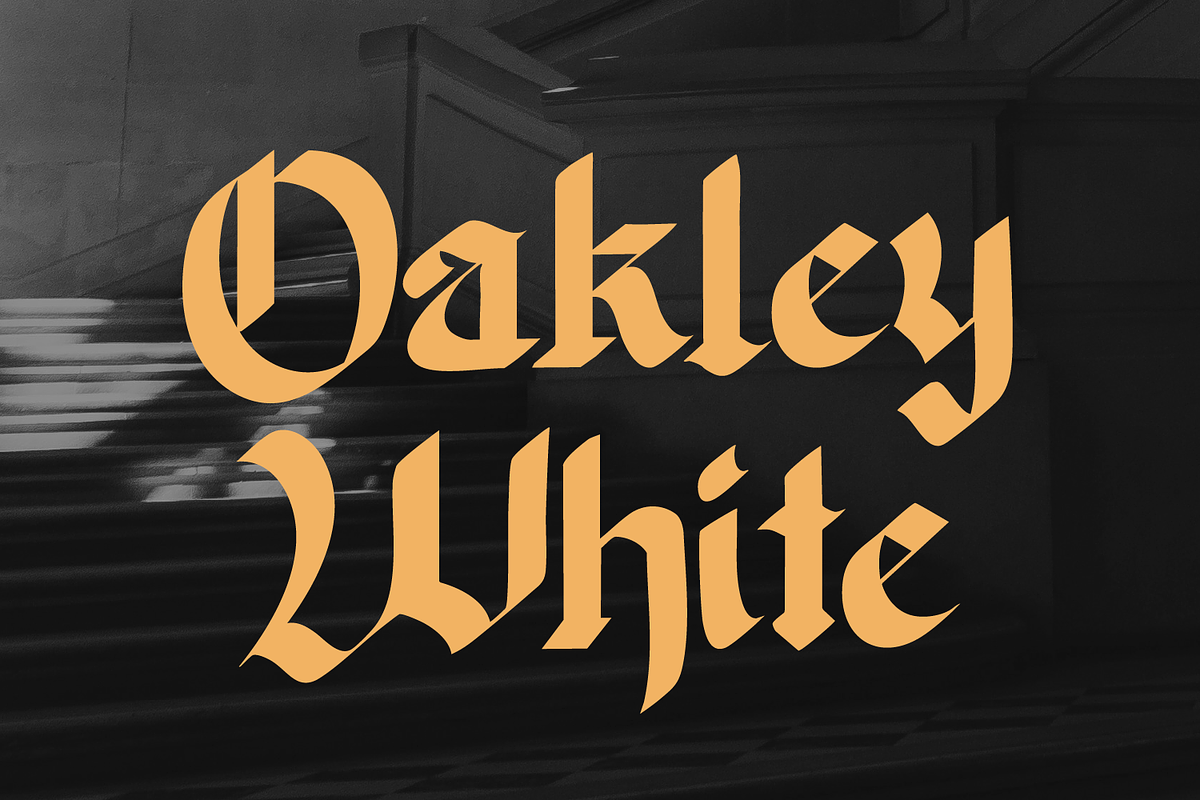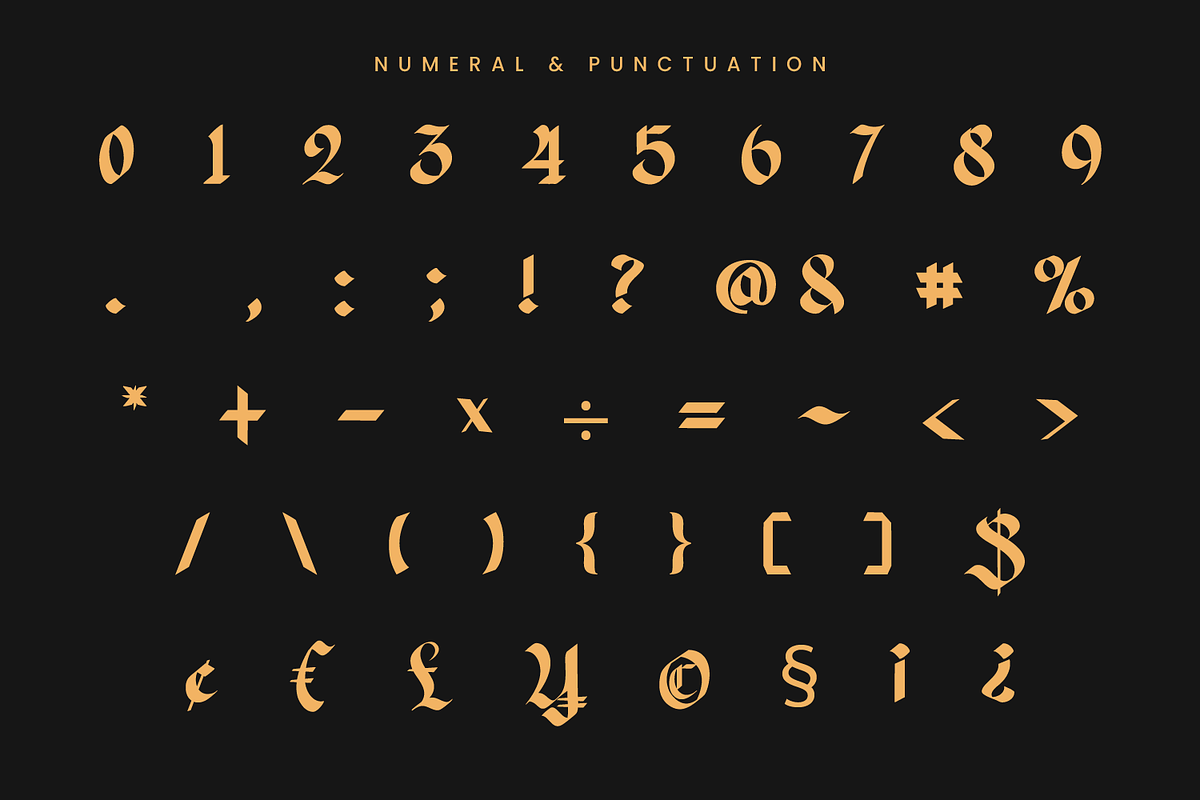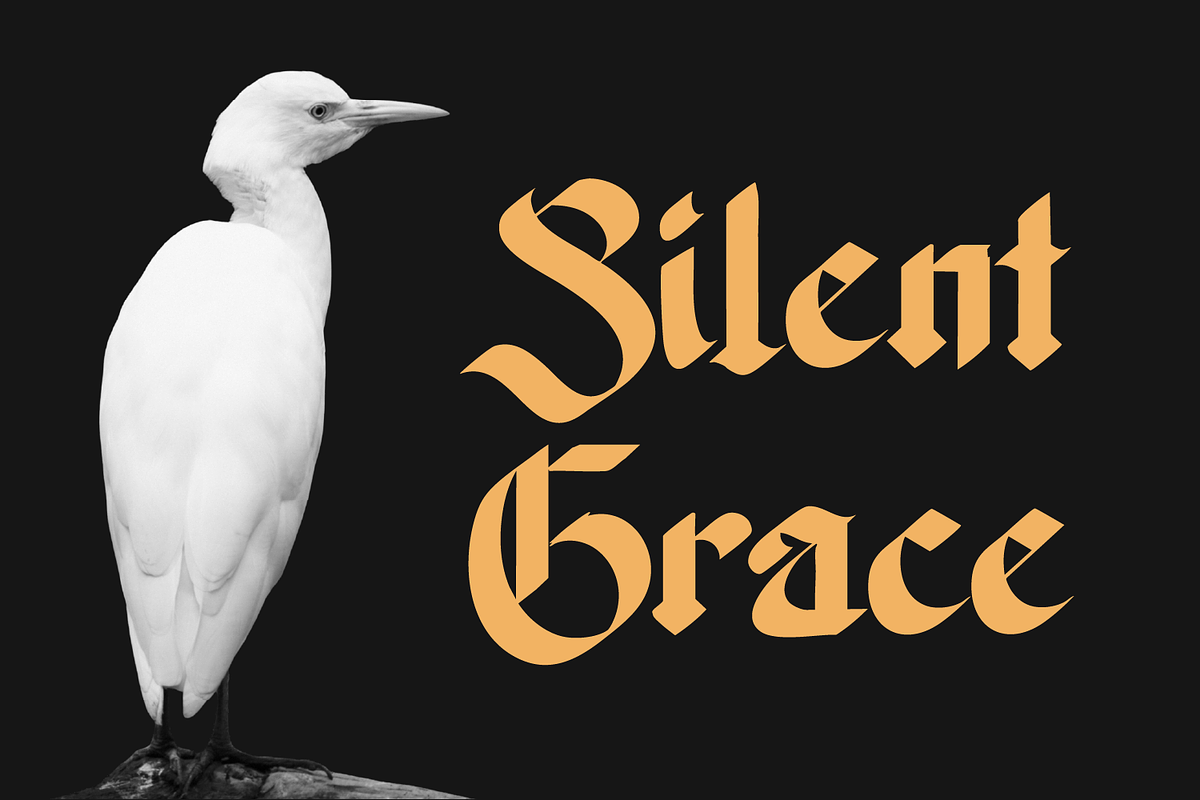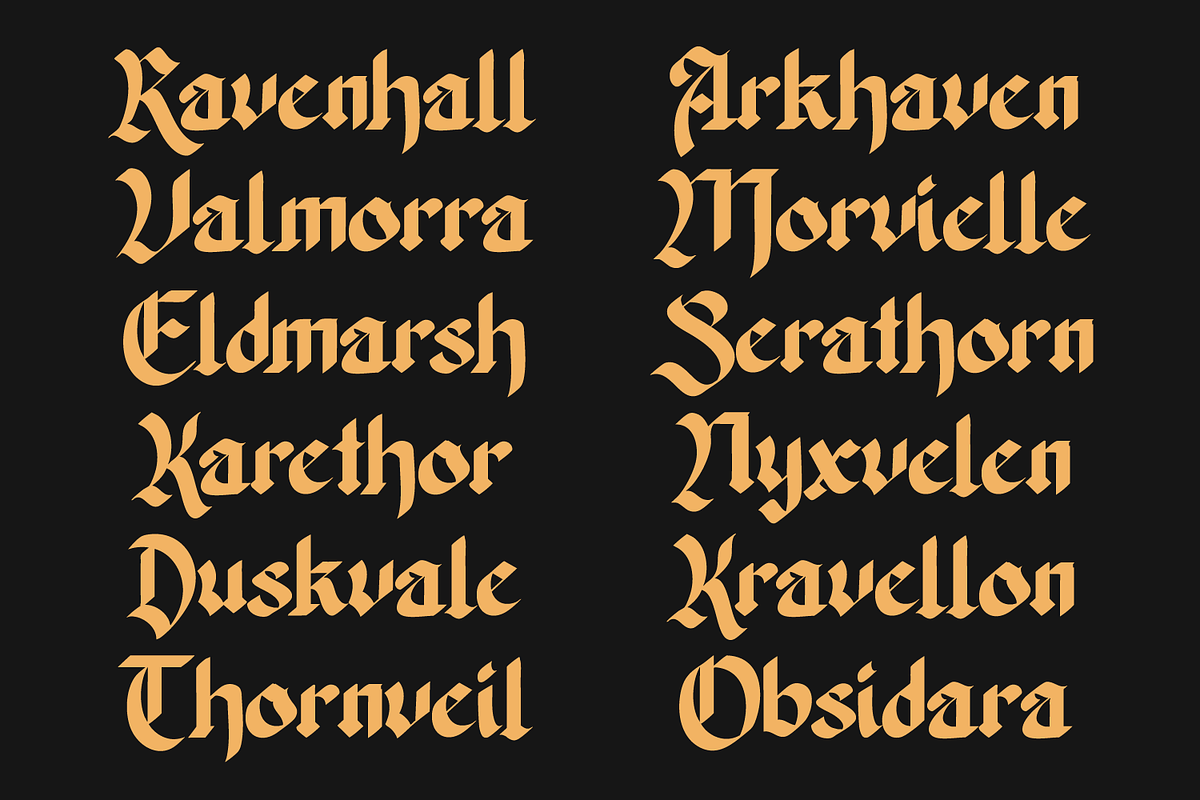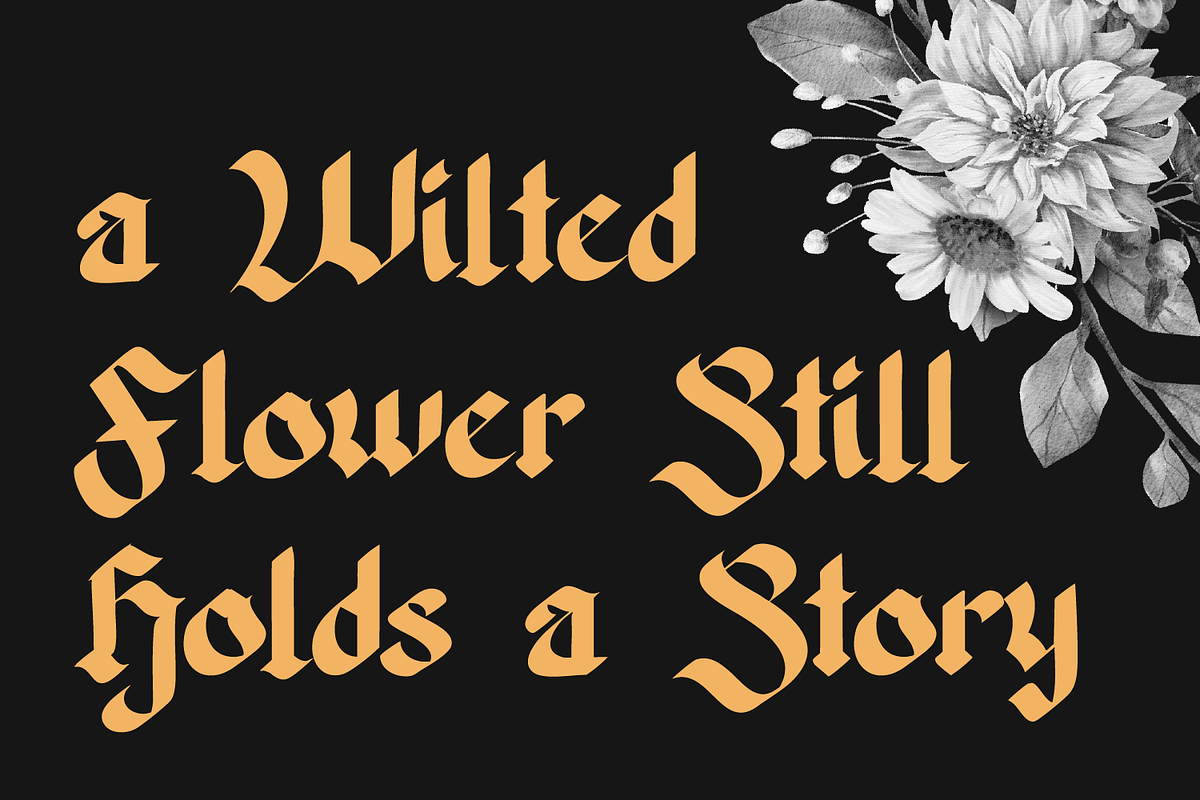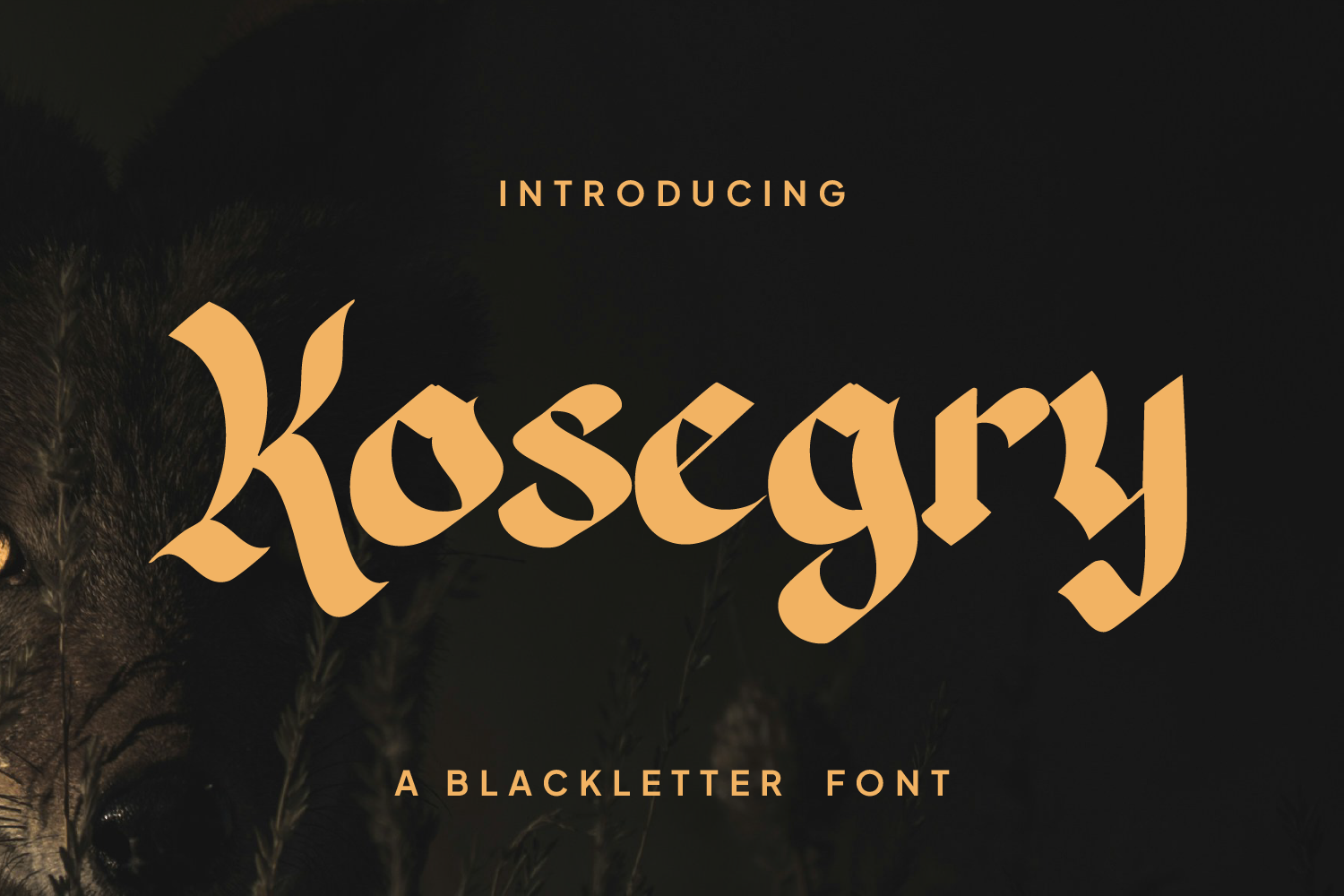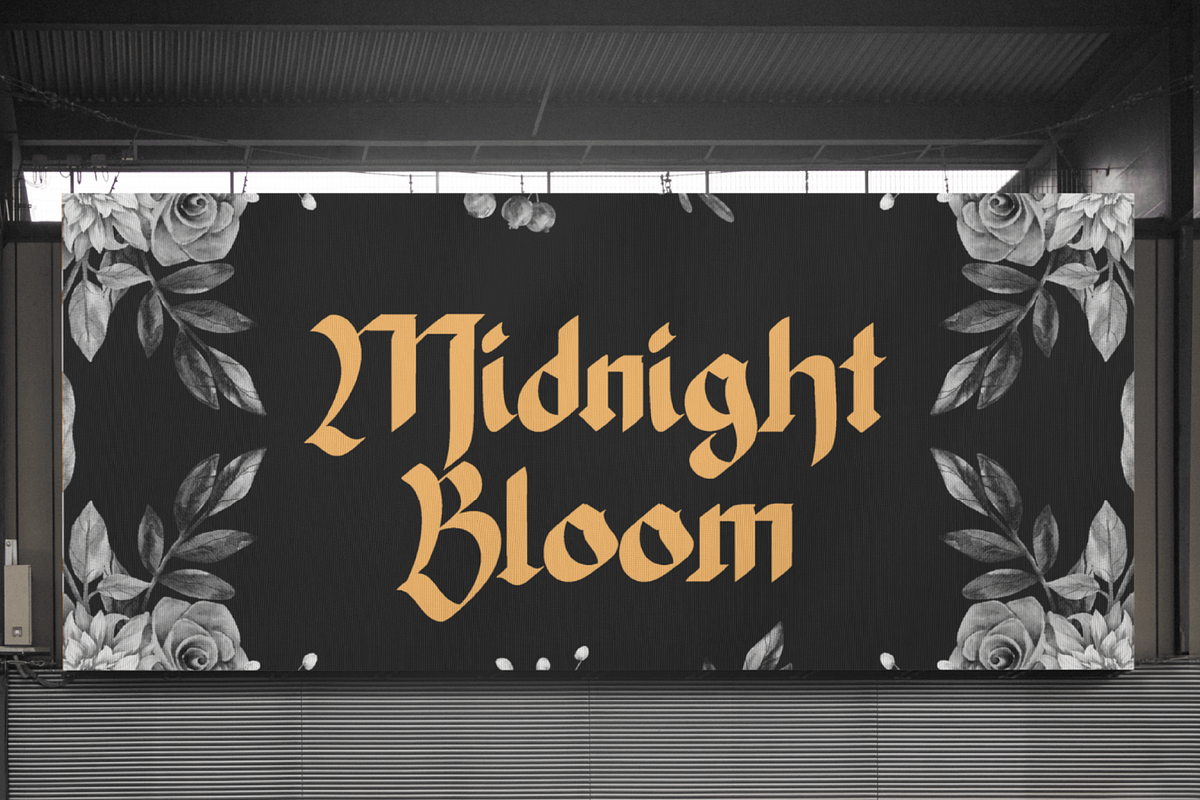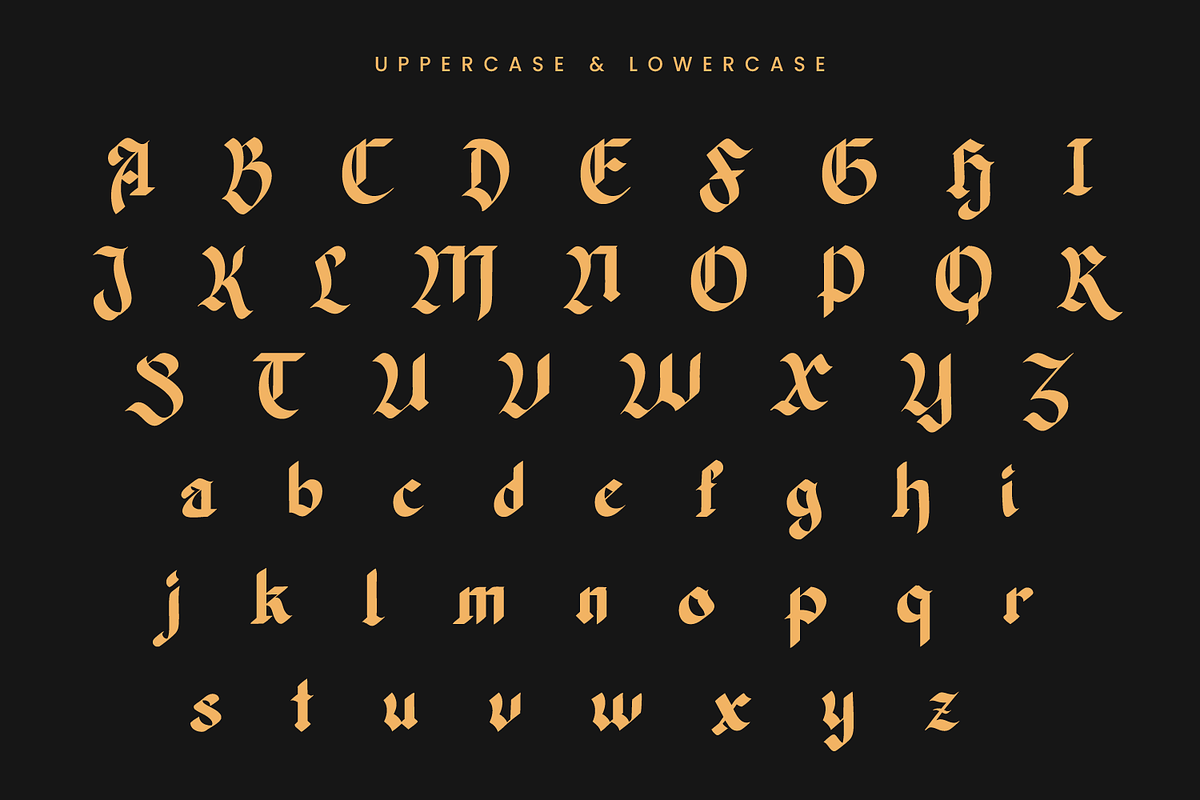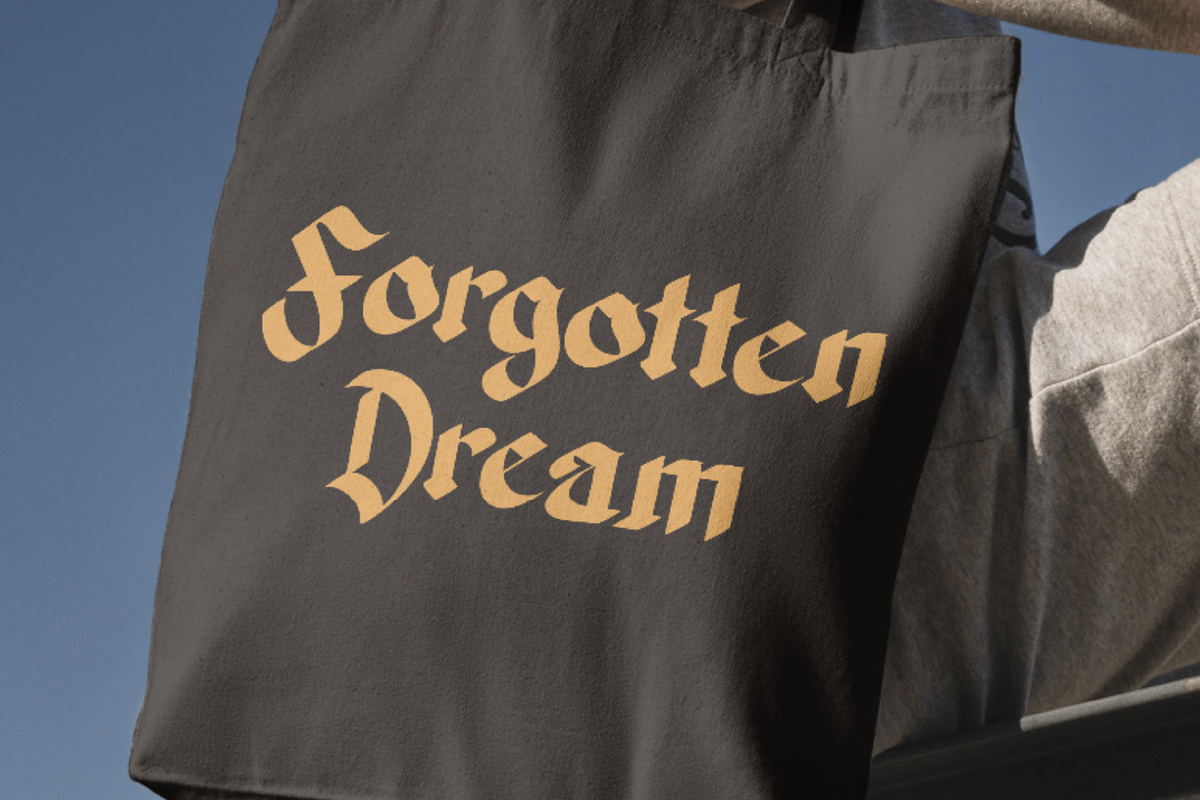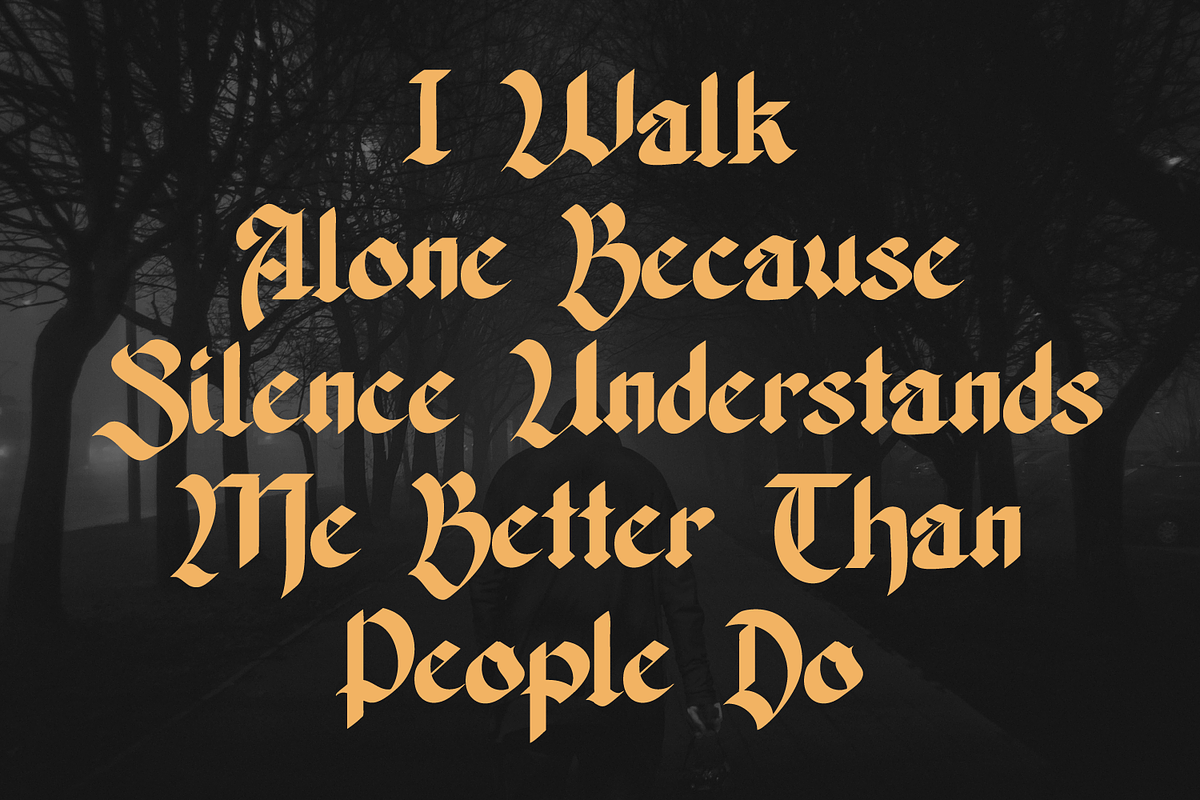
Kosegry – A Bold Blackletter Font
Kosegry is a modern blackletter font that blends classic gothic elegance with a strong contemporary edge. Each letter is carefully crafted with sharp details and bold strokes, creating a striking and dramatic appearance. Perfect for projects that need a dark, powerful, and mysterious look — from movie posters and metal band logos to fantasy book covers and gothic branding designs. Kosegry brings the timeless essence of medieval typography into the modern era, giving your designs a bold and unforgettable character.
Best For: -Gothic & dark quotes
- Band or game logos
- Fantasy book or movie titles
- Vintage or mystical branding
Kosegry is more than just a font — it’s a statement of strength, mystery, and timeless style.